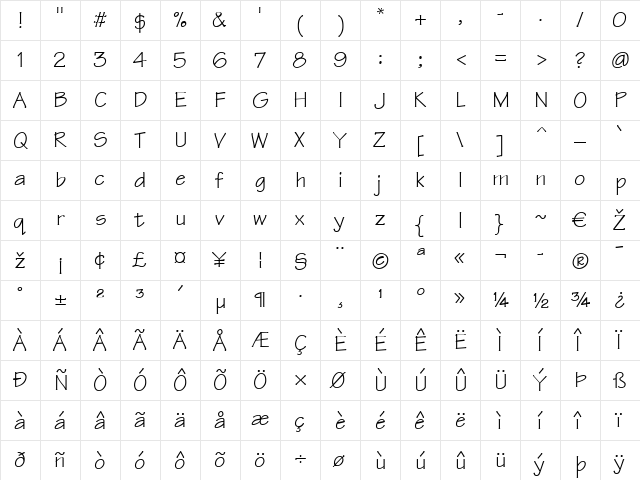
Tekton LT Regular
Tekton LT takes a measured approach to typography — its balanced proportions and neutral character make it a reliable workhorse for both digital and print work. Its slender proportions lend an understated elegance to any composition.